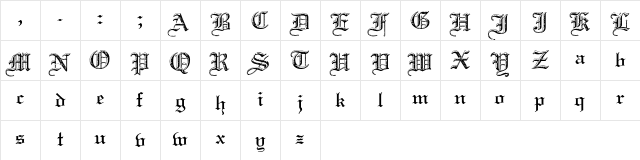
WoodGothicCaps Regular Free Font
WoodGothicCaps Regular
Design Context for WoodGothicCaps
WoodGothicCaps echoes the hand-painted signage and woodblock typography of the American frontier, with a warm, rugged personality.
Font Pairing: Combine WoodGothicCaps with a simple slab or neutral sans - period-accurate companions reinforce the vintage feel without competing for attention.
Pro Tip: Use WoodGothicCaps for short, impactful bursts of text - it shines in poster headlines and product names rather than extended copy.